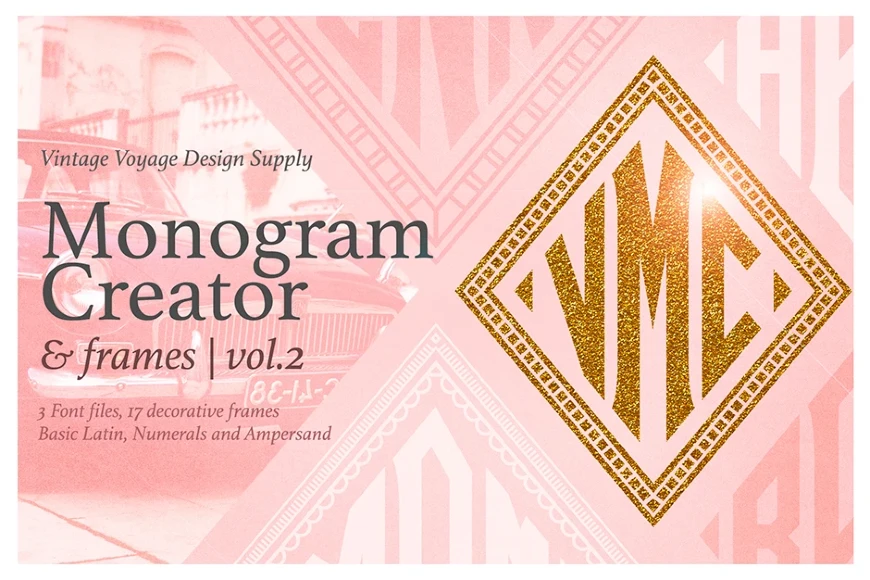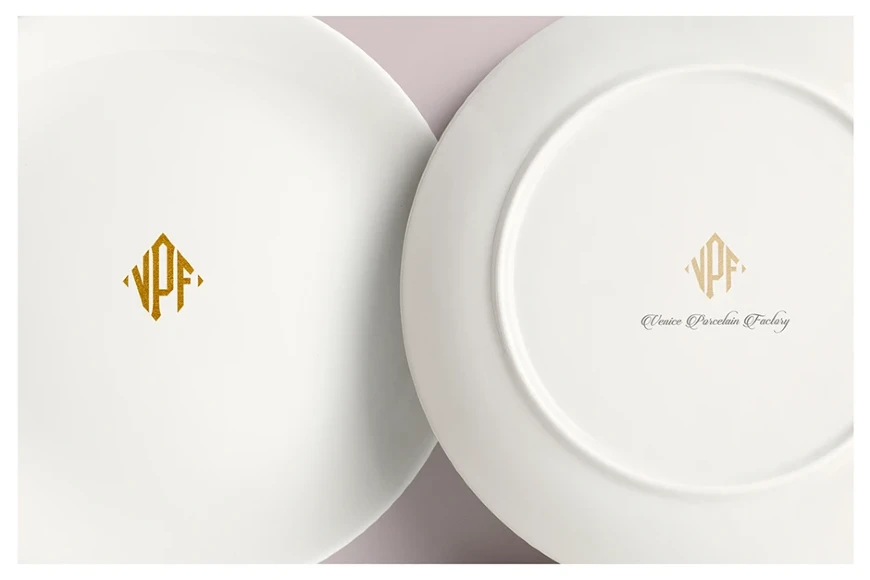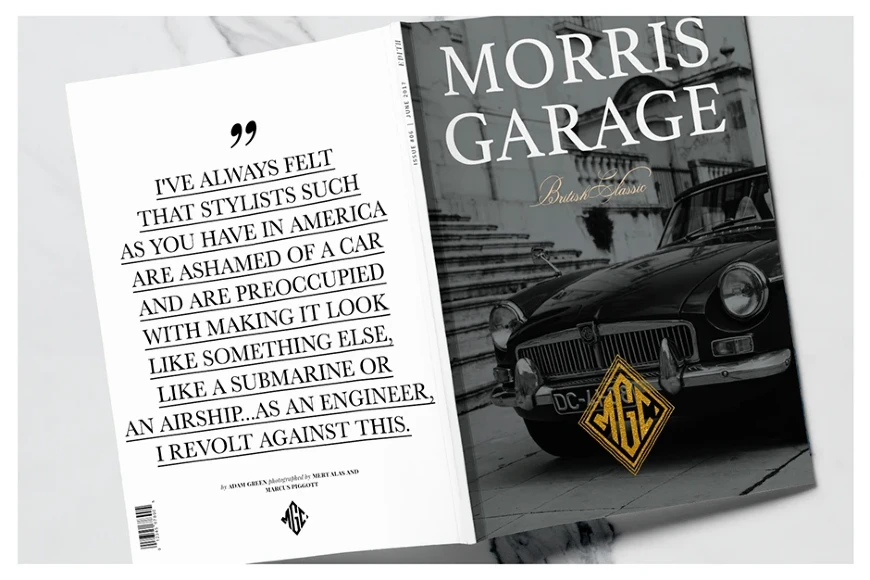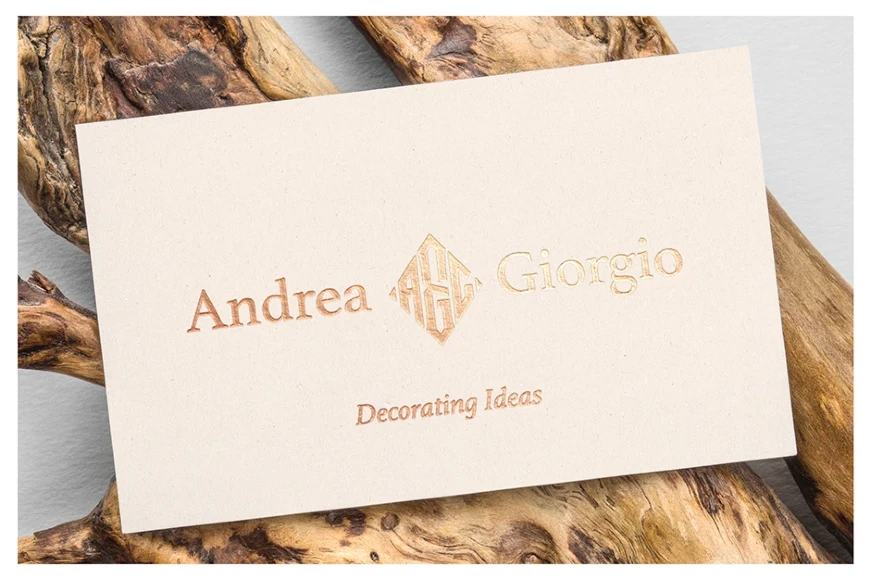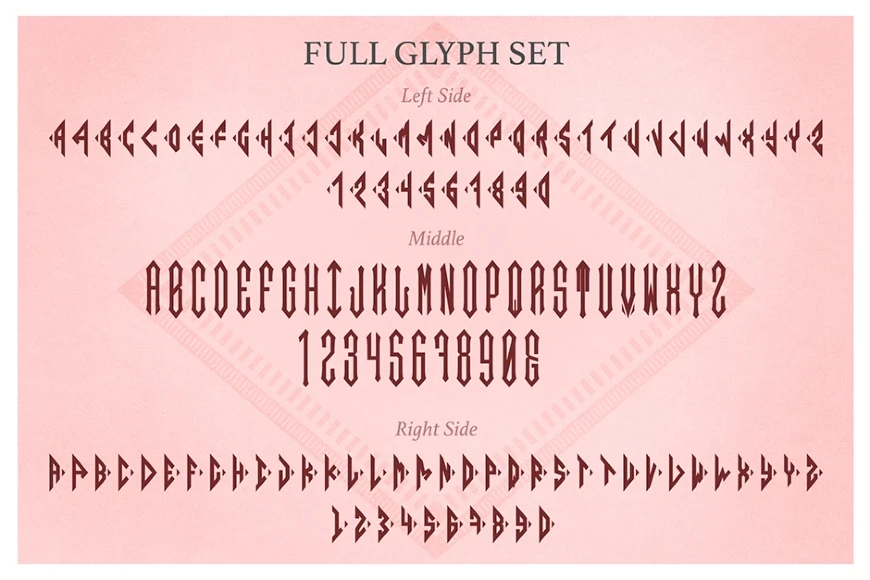
Diamond Monogram
From Vintage Voyage Design
Diamond Monogram is a set of three typefaces designed for creating two- or three-letter monograms with a clean mid-century sans style. Includes a full basic Latin set, numerals, and a central ampersand. Uppercase and lowercase forms offer alternate styles for added variety. Ideal for logos, personal branding, stationery, and decorative initials. Built for simple, stylish monogram creation with minimal effort.